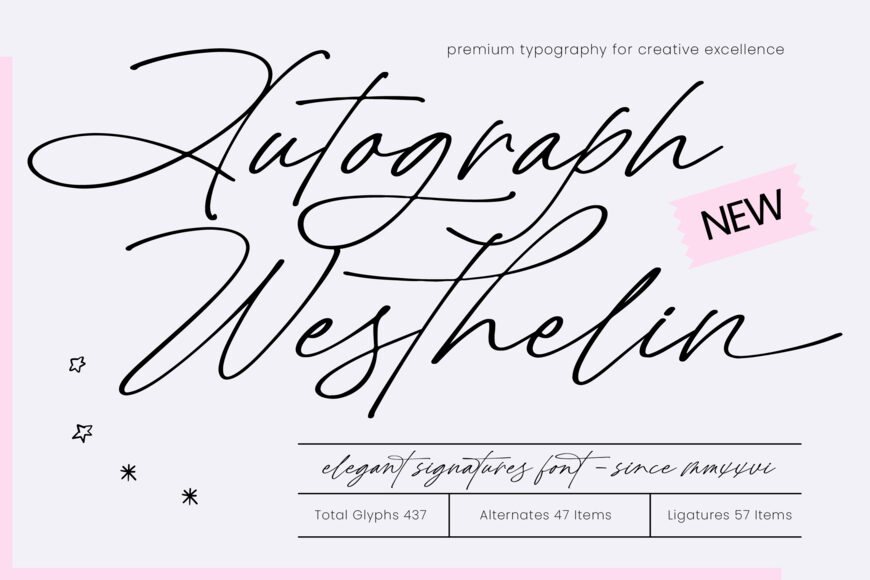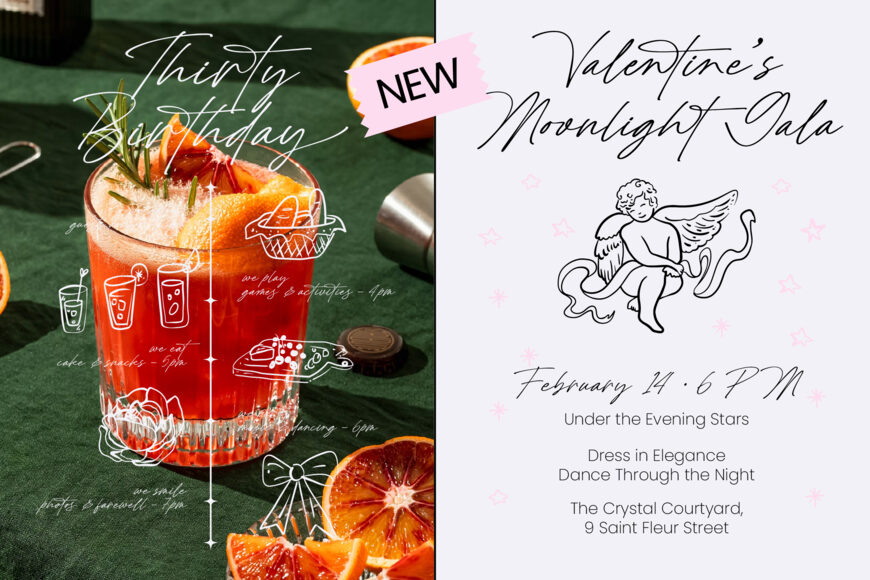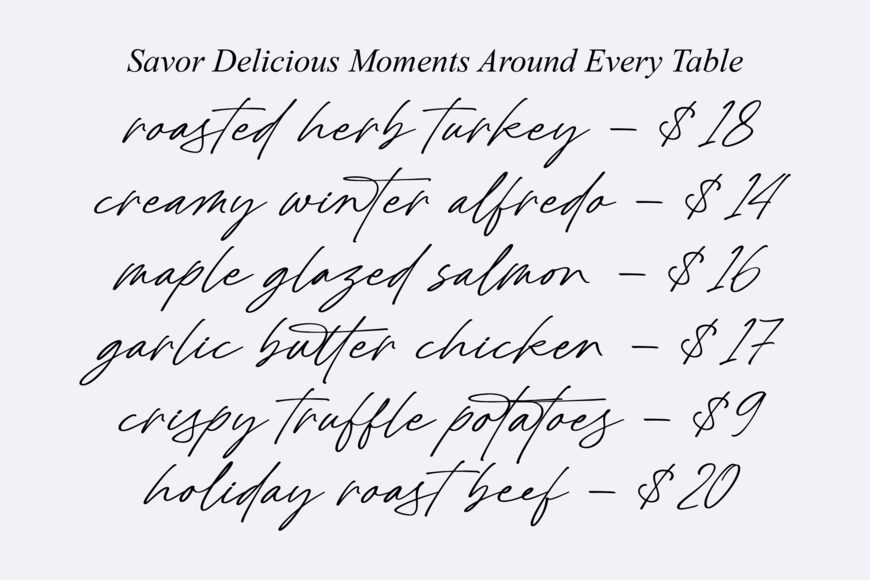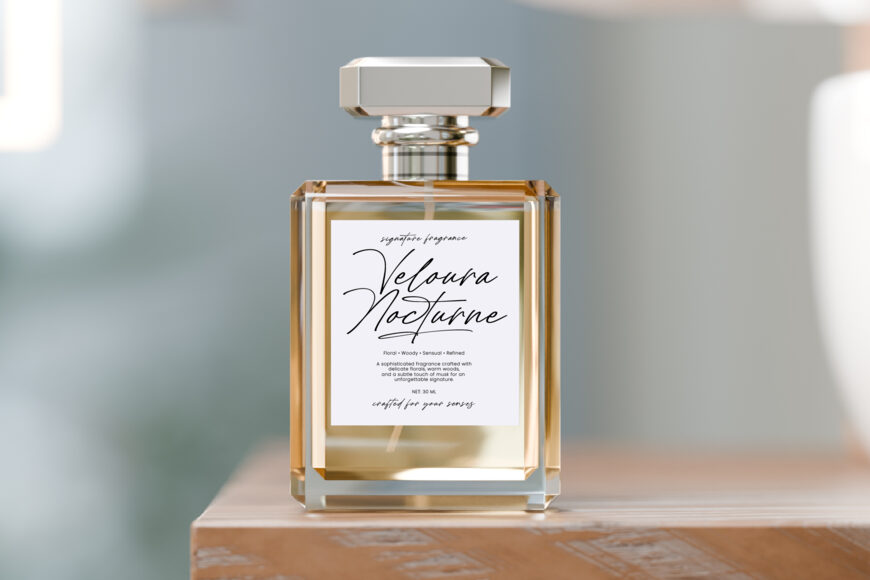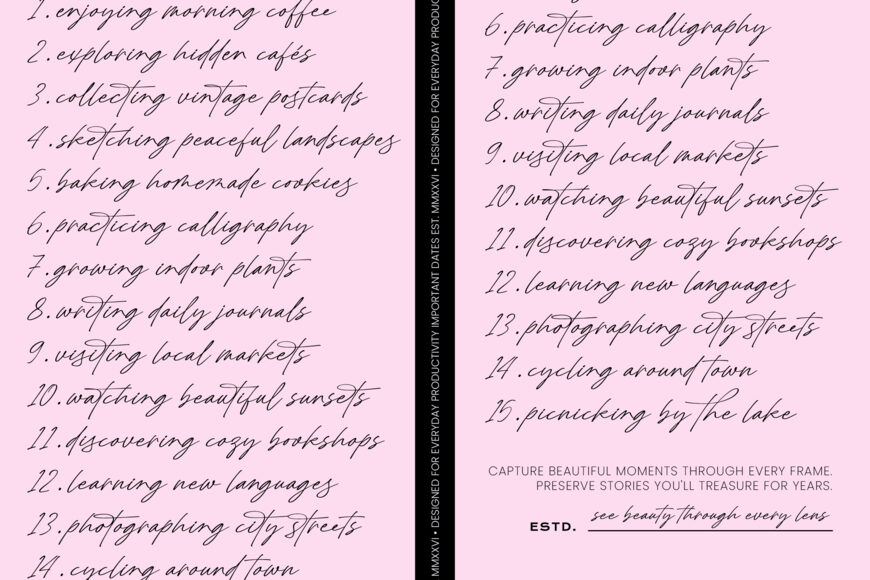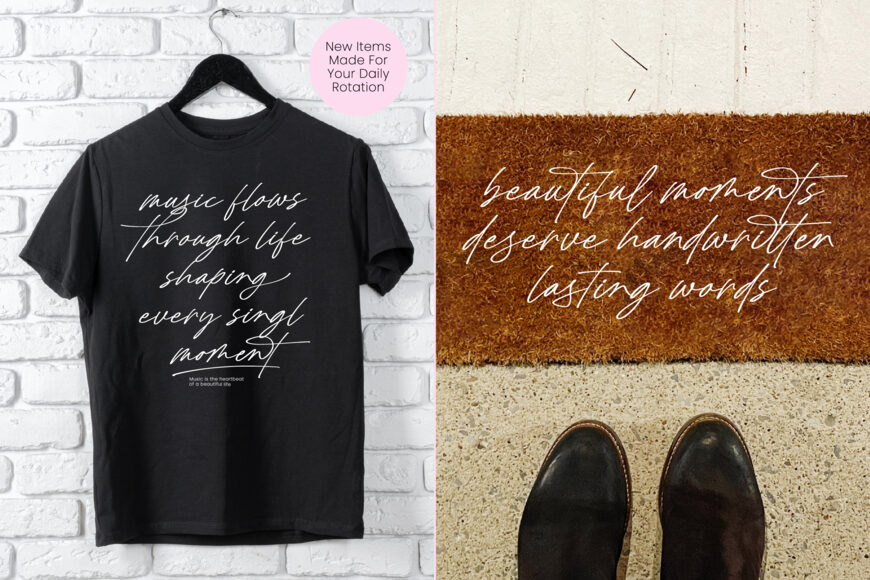
Add a touch of sophistication to your projects with a premium font that mimics authentic handwriting. Designed for high-end aesthetics, it’s perfect for luxury branding, packaging, and editorial design.
With extensive multilingual support and a robust glyph set, this font is versatile and ideal for global projects, allowing you to maintain a consistent brand voice worldwide. Its elegant strokes make it suitable for creating bespoke wedding invitations, logos, and social media content that exudes exclusivity and style.